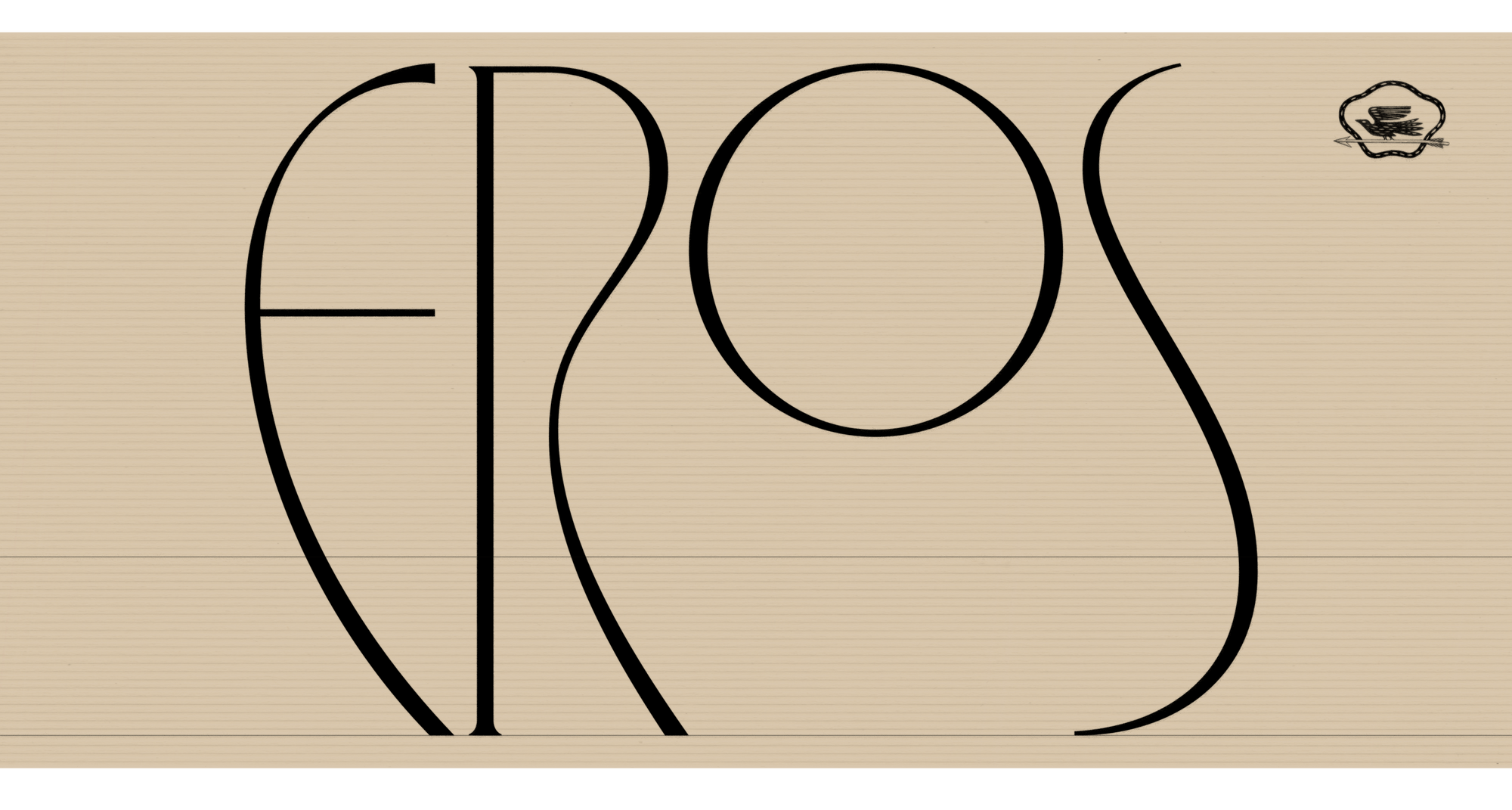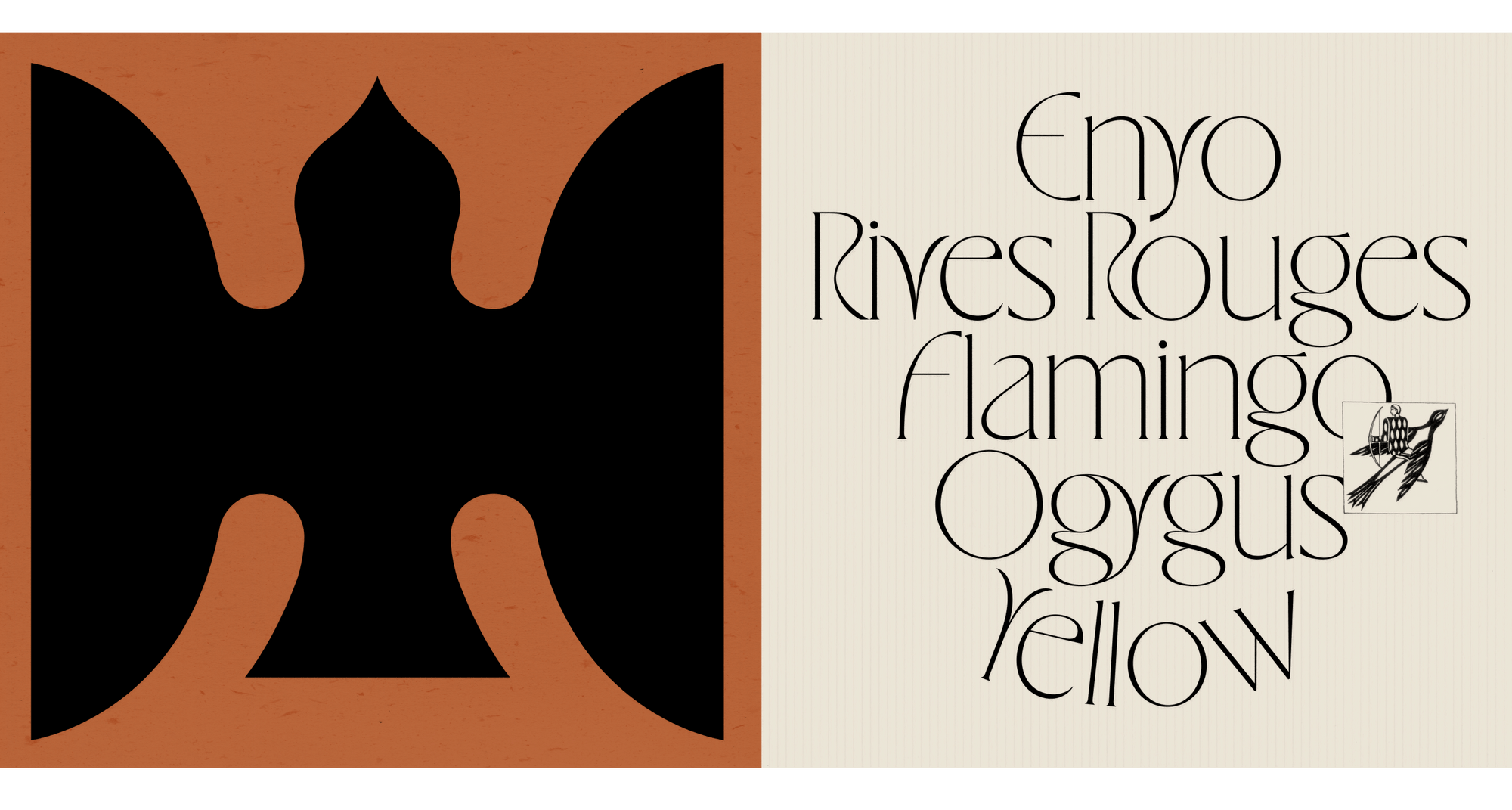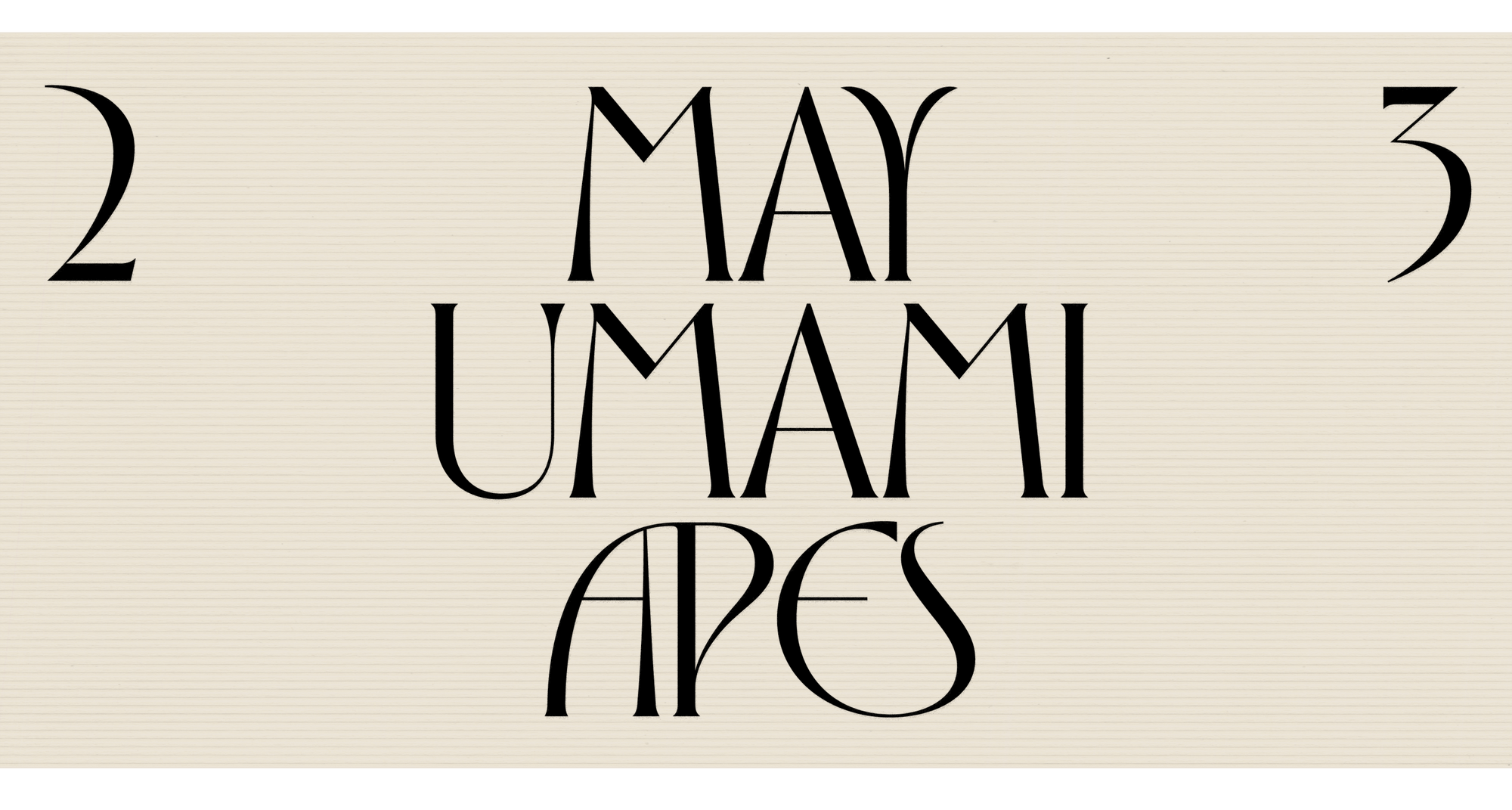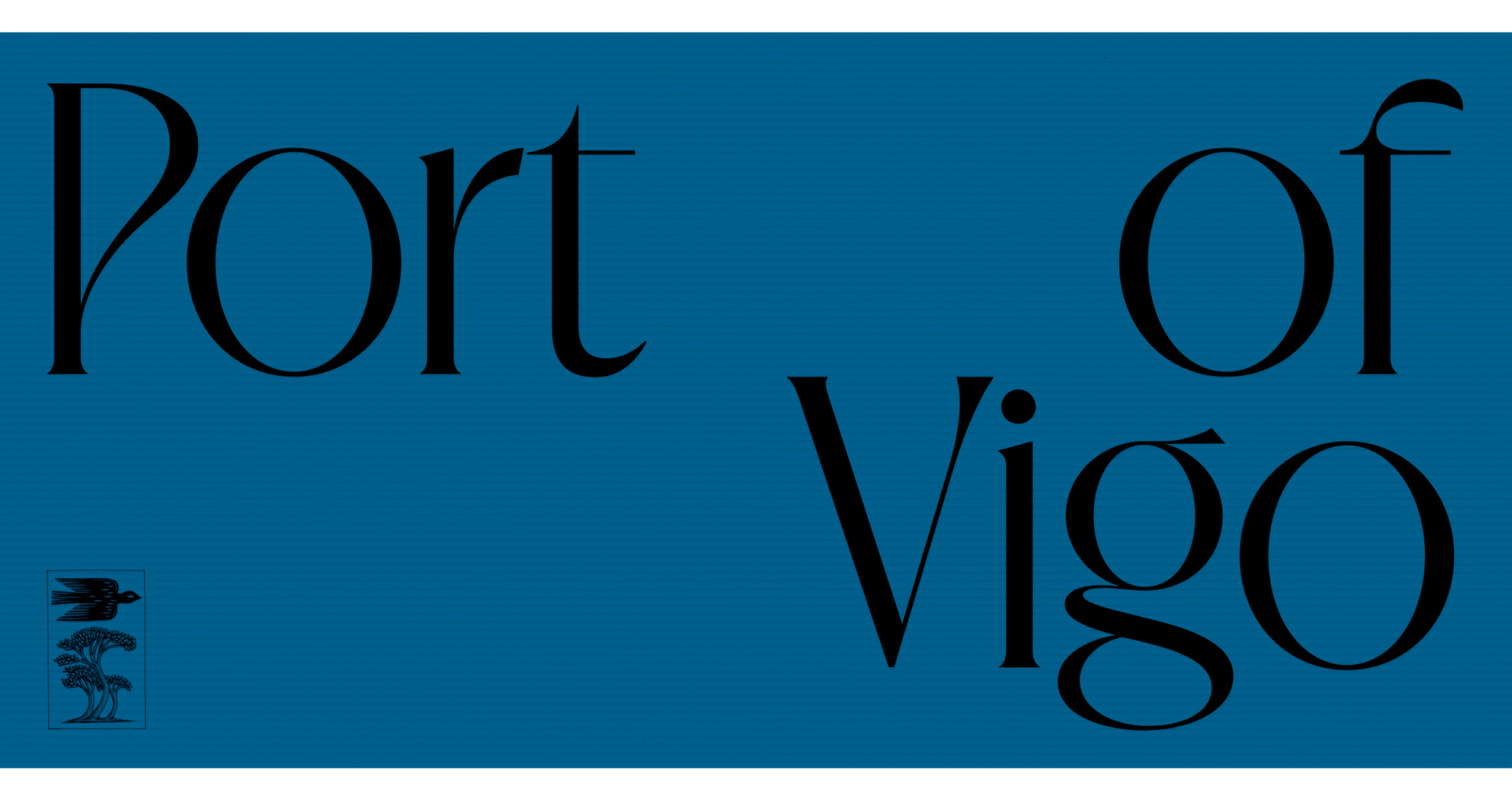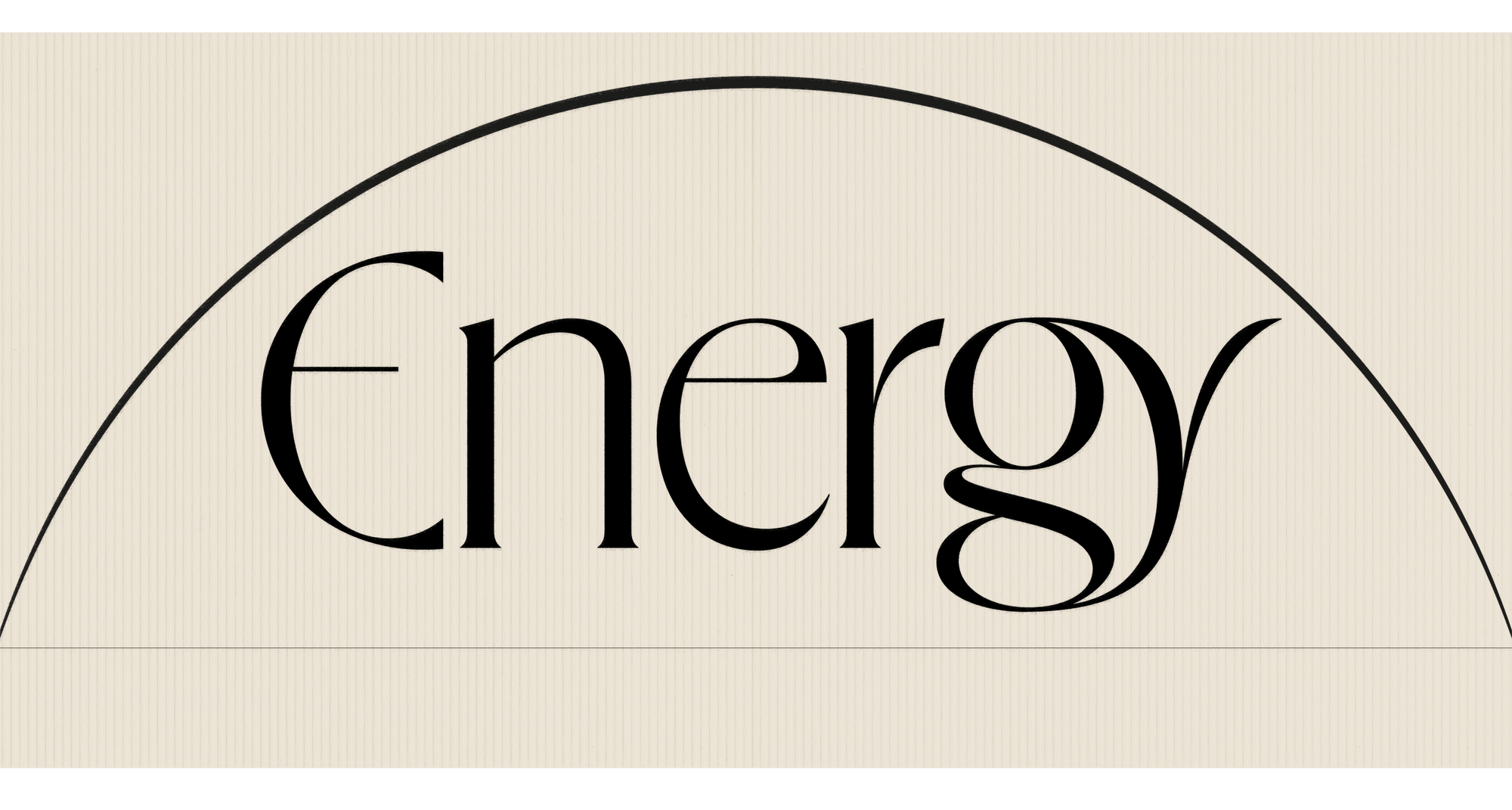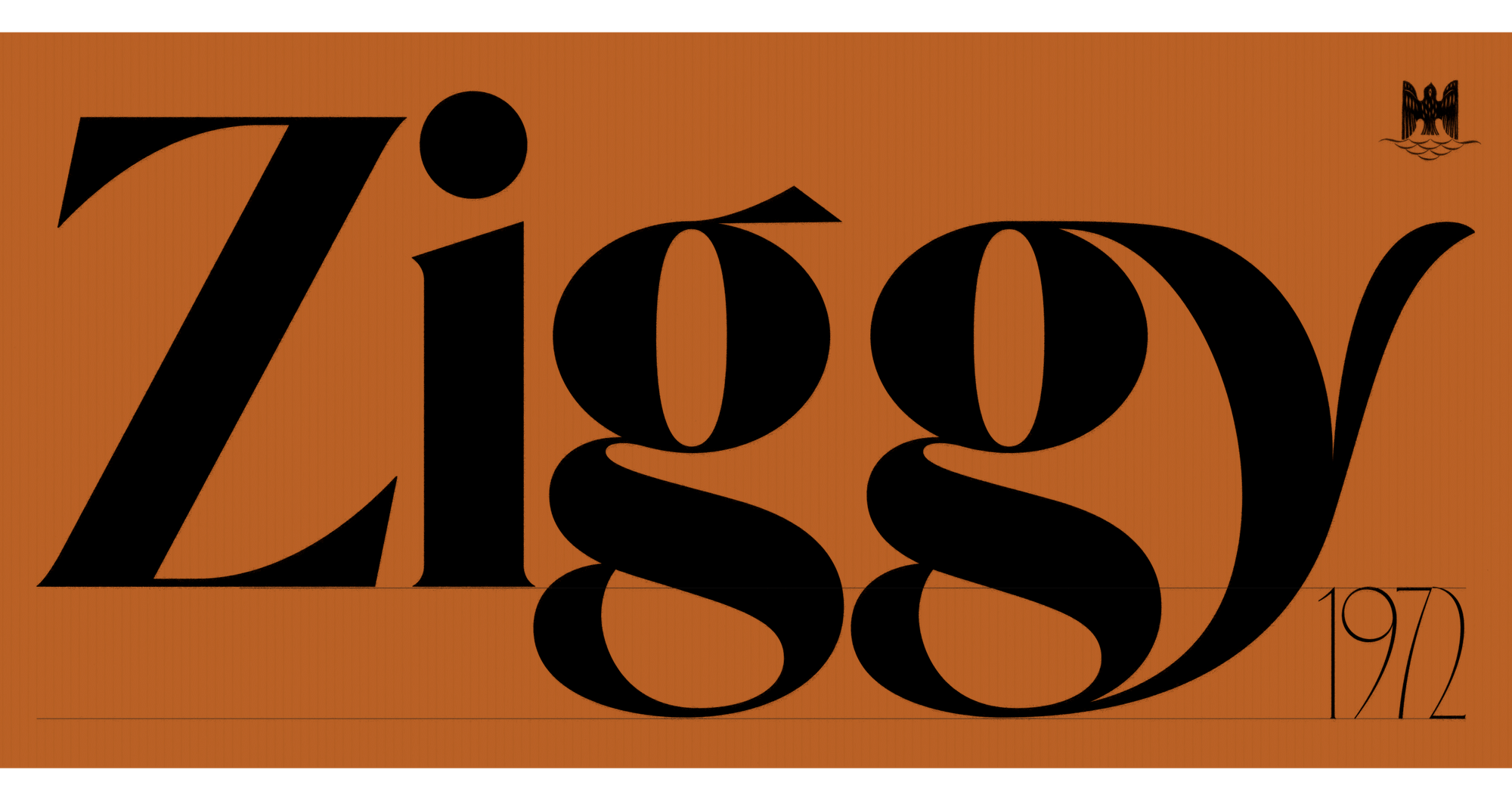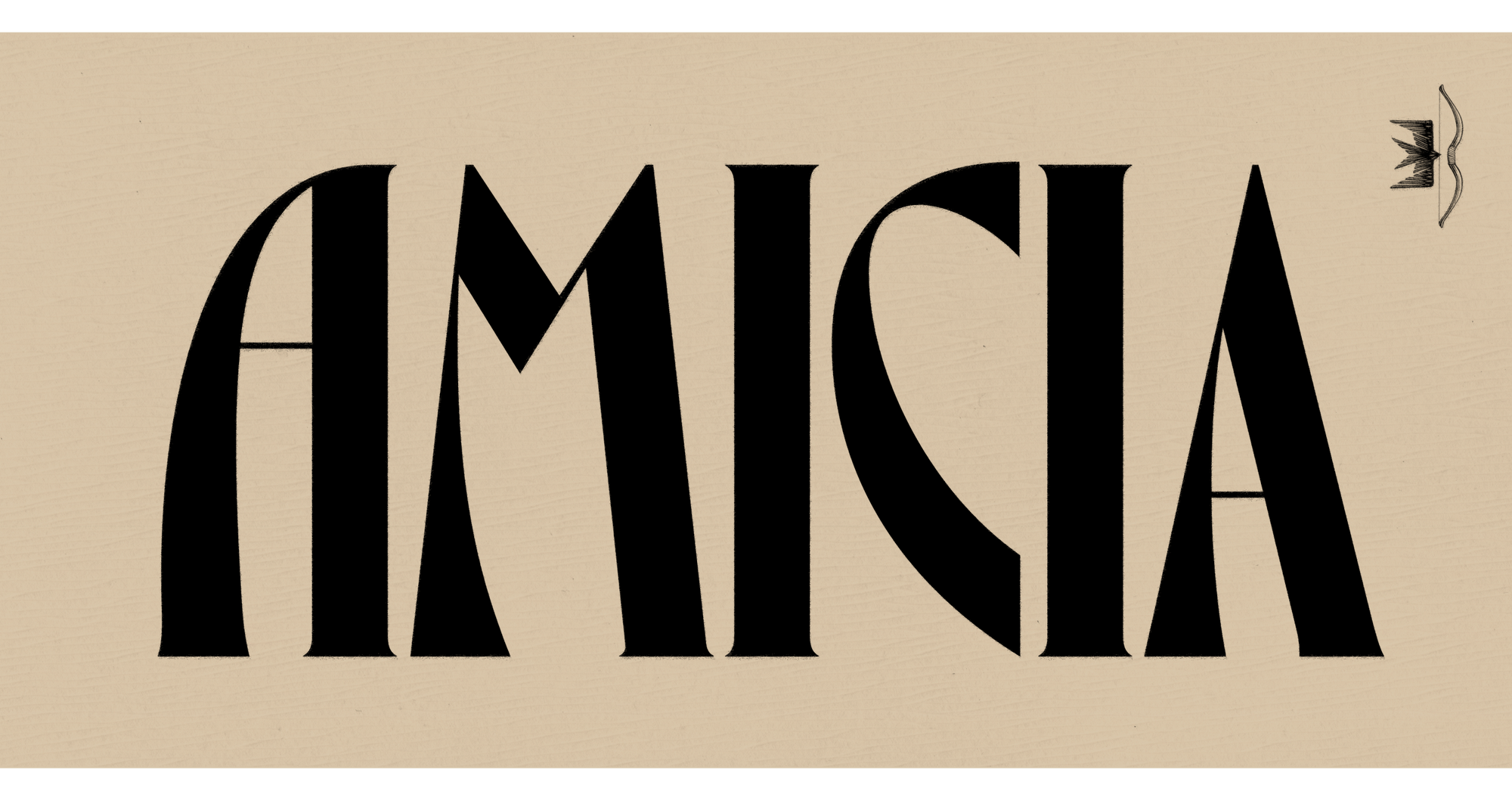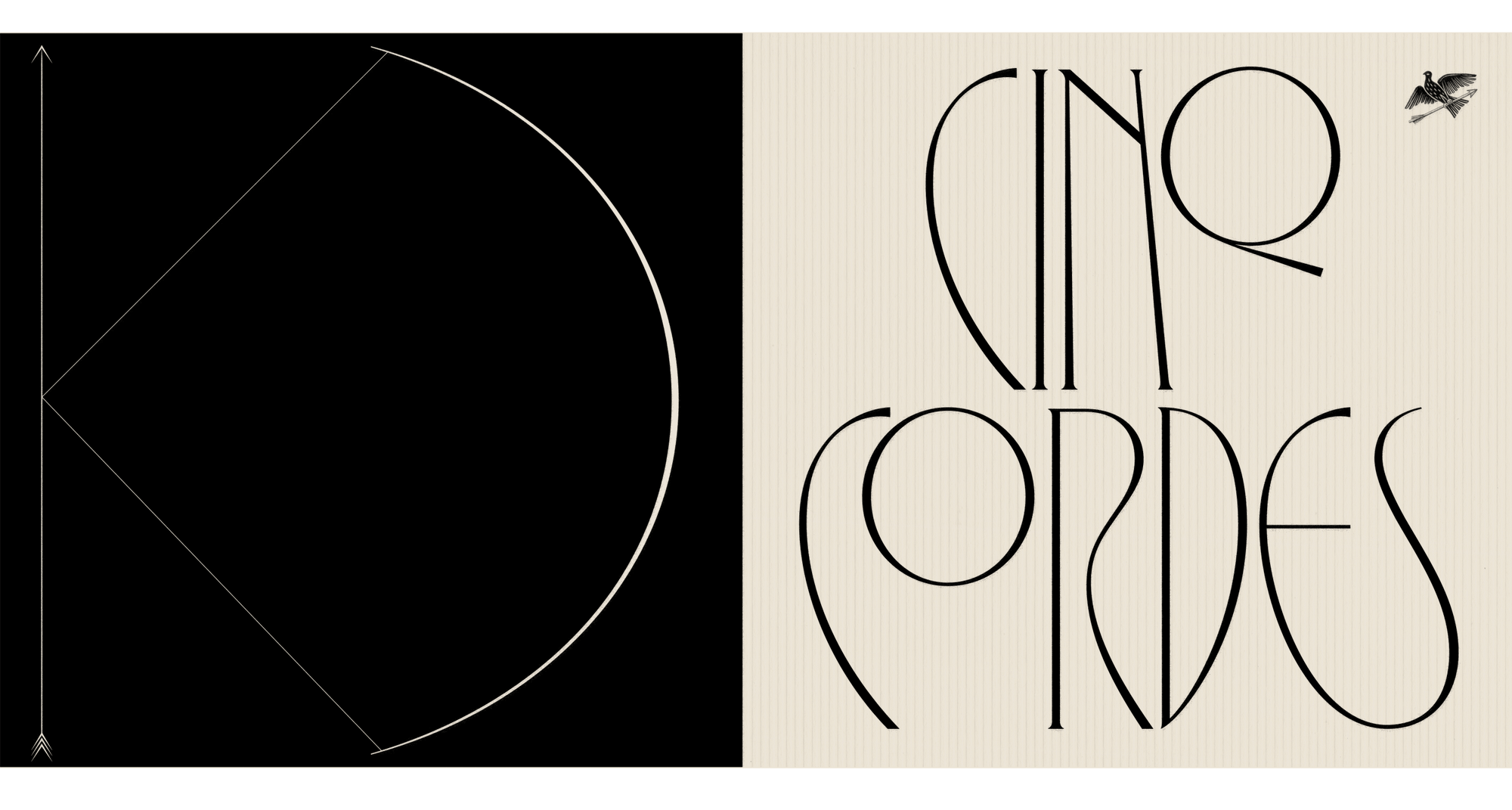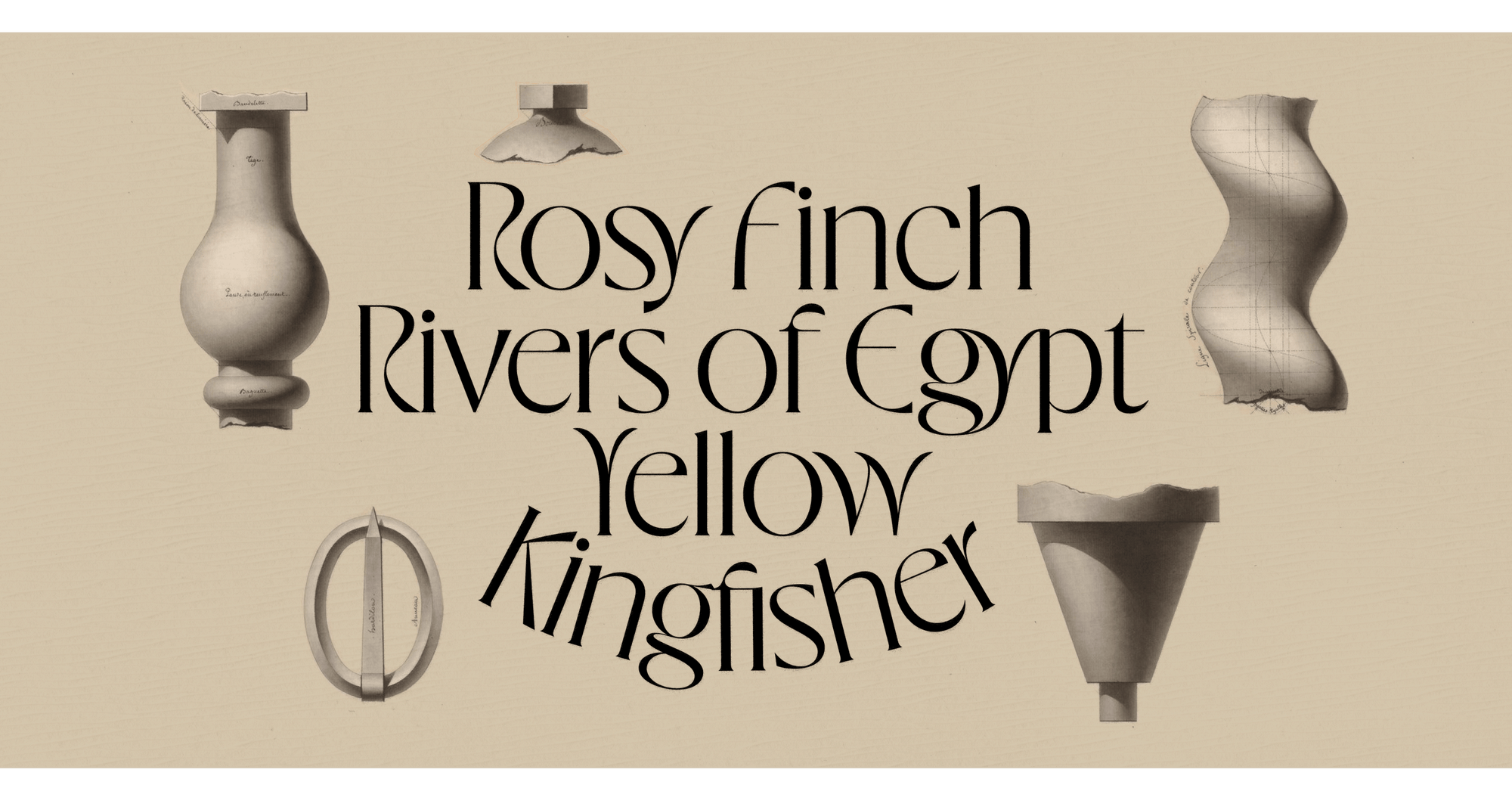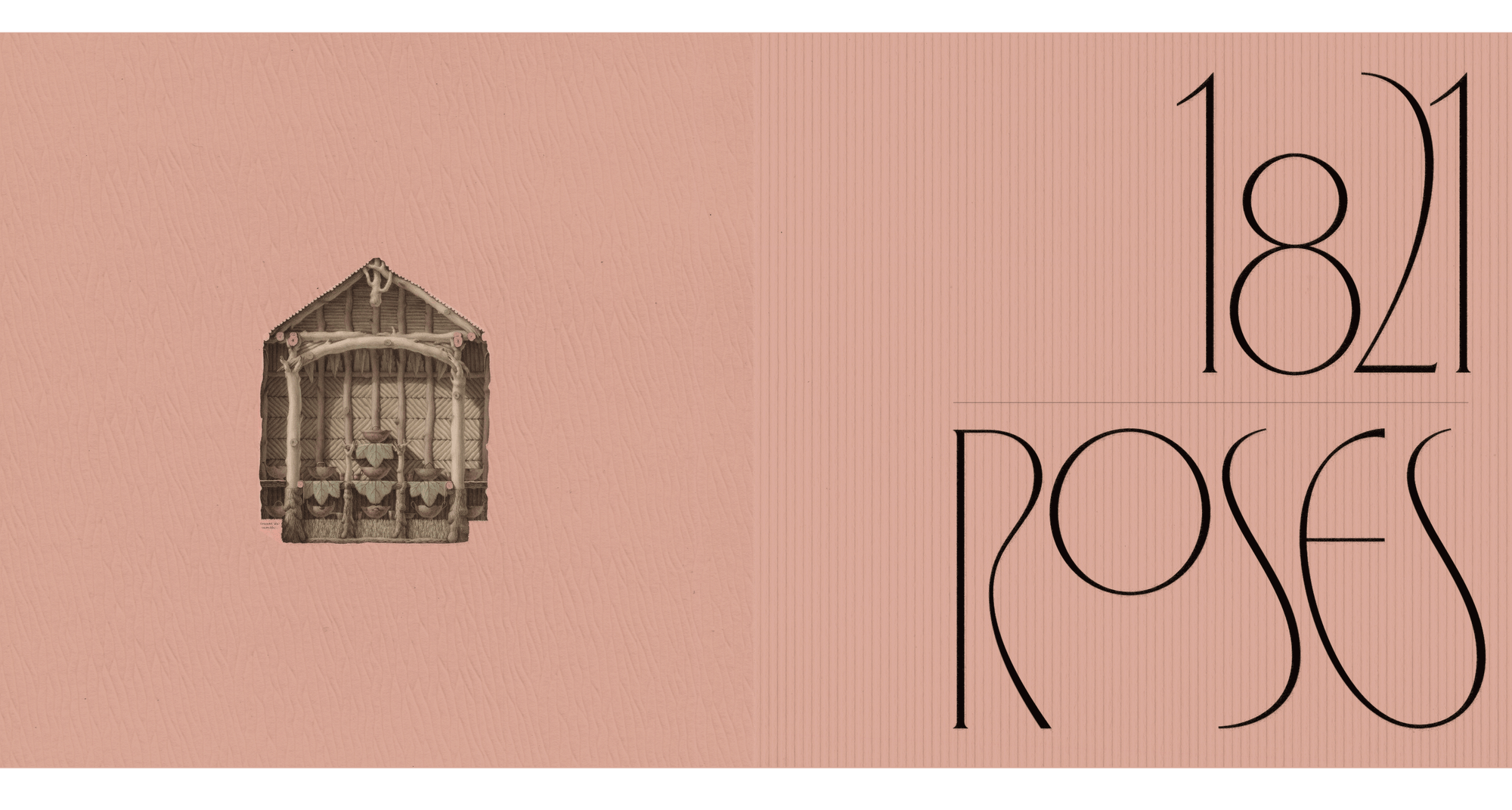
Eros
• Display - 5 weights
Light, Regular, Bold & Light Condensed, Regular Condensed, Bold Condensed
• Release
2022
• Designer
Jérémy Schneider
Eros lives up to its name. It is the loving fusion of 2 custom typefaces we drew in the past years : a condensed one for Le Théâtre des Bouffes du Nord and a regular one for Pharrell Williams and Jean Imbert’s common project in Saint-Tropez. Eros' aesthetic is inspired by the art movement of Jugendstil and Vienna Secession in the late 19th century and are redesigned with a strong contemporary touch that brings an elegant sharpness to the drawing.Eros has a very refined expression, it conveys a beautiful organic feeling and yet the typeface is still functional. Eros Condensed is consistent with Eros Standard but shows its own characteristics as it is more than just a variation. Eros Condensed has its own design. The condensed « O » is coded to interact with the letter next to it. It will adapt whether it's next to uppercases or lowercases and this special feature gives quite some flow to the typeface. We drew 30 pairs of uppercase ligatures and 30 pairs of lowercases ligatures to ensure the most beautiful sequences of words possible.
Ligatures
Alternates